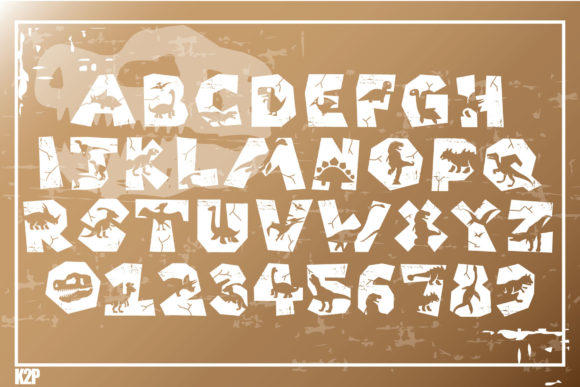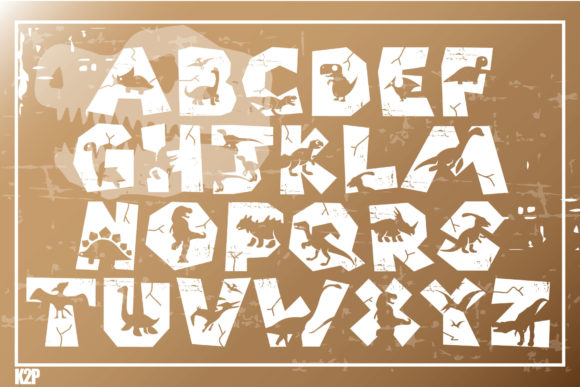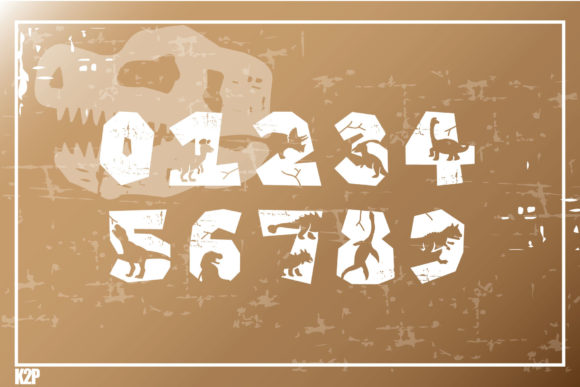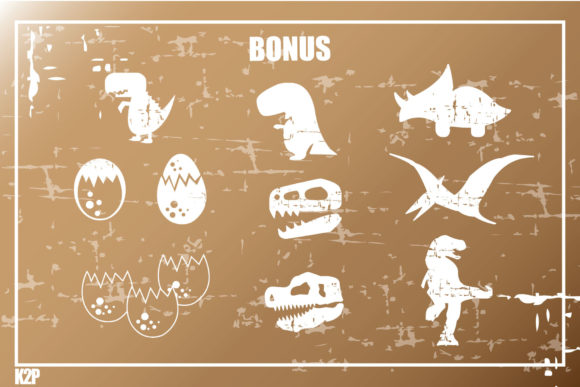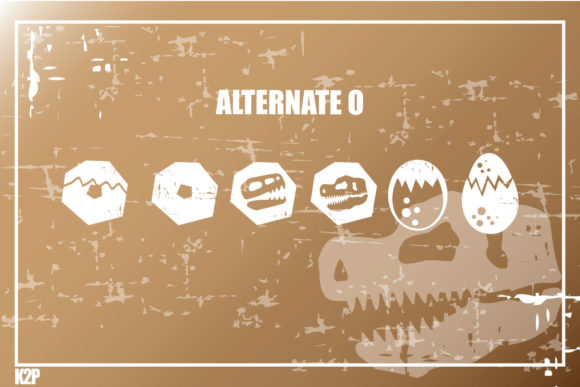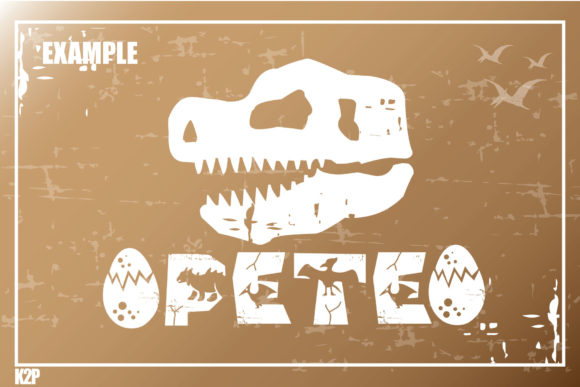
Discover the Fun and Playful Dinopark Font: Perfect for Kids’ Designs
Are you looking for a font that can add a touch of excitement and playfulness to your designs, especially those targeting kids? Look no further than the Dinopark Font! This thick lettered and fun looking decorative font is specifically designed to bring a sense of adventure and joy to your projects. In this article, we’ll dive into the features and benefits of Dinopark, and explore how it can elevate your designs to the next level.
The Perfect Font for Kids’ Designs
Dinopark is a decorative font that is perfectly suited for children’s themed designs. Its bold and chunky letters are sure to grab attention and make your designs stand out. Whether you’re creating posters, flyers, or social media graphics for kids’ events, products, or activities, Dinopark is the ideal choice. The font’s playful and energetic vibe is contagious, making it perfect for designs that require a fun and youthful approach.
Bright Colors and Endless Possibilities
One of the best things about Dinopark is how well it pairs with bright colors. The font’s thick letters provide a sturdy foundation for bold and vibrant colors, making it easy to create visually stunning designs. Imagine combining Dinopark with a palette of bright blues, reds, and yellows to create a design that’s both fun and engaging. The possibilities are endless, and the results are sure to be amazing!
Dinopark is PUA (Private Use Area) encoded, which means that you can access all of the glyphs and swashes with ease. PUA encoding allows designers to access special characters and glyphs that are not available in standard fonts. This means that you can easily add decorative elements to your designs, such as flourishes, swashes, and other unique characters. With Dinopark, you can unlock a world of creative possibilities and take your designs to new heights.
For those who may not be familiar with PUA encoding, it’s a way of mapping characters to a specific range of Unicode code points that are reserved for private use. This allows font designers to include additional characters and glyphs in their fonts, which can then be accessed by designers using software that supports PUA encoding. In the case of Dinopark, PUA encoding means that you can access a wide range of glyphs and swashes, making it easy to add unique and creative elements to your designs.
Dinopark offers a range of benefits for designers and crafters, including:
- Flexibility: The font’s bold and chunky letters make it perfect for a wide range of design applications, from posters and flyers to social media graphics and crafts.
- Customization: With PUA encoding, you can access a wide range of glyphs and swashes, making it easy to customize your designs and add unique elements.
- Fun and playful: Dinopark’s playful and energetic vibe makes it perfect for designs that require a fun and youthful approach.
In conclusion, Dinopark is a fantastic font that is perfect for kids’ designs, crafts, and projects. Its bold and chunky letters, combined with its PUA encoding, make it a versatile and fun font to work with. Whether you’re a designer, crafter, or DIY enthusiast, Dinopark is sure to bring a touch of excitement and playfulness to your projects. So why not give it a try and see what amazing designs you can create?